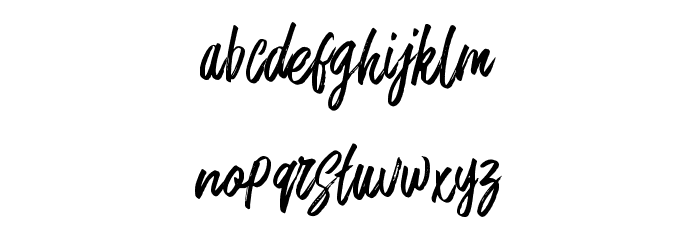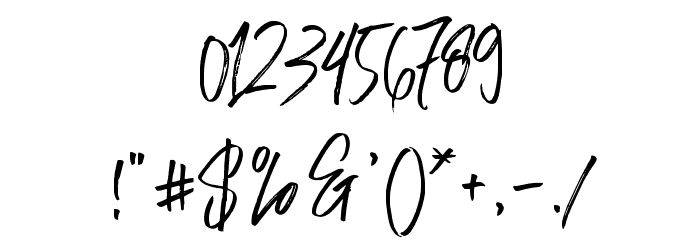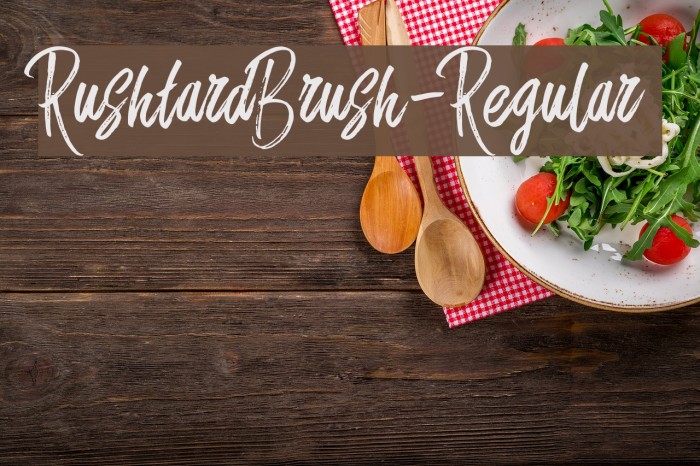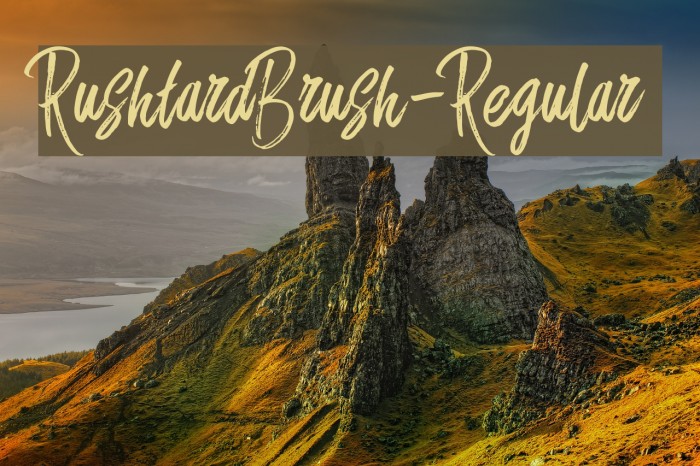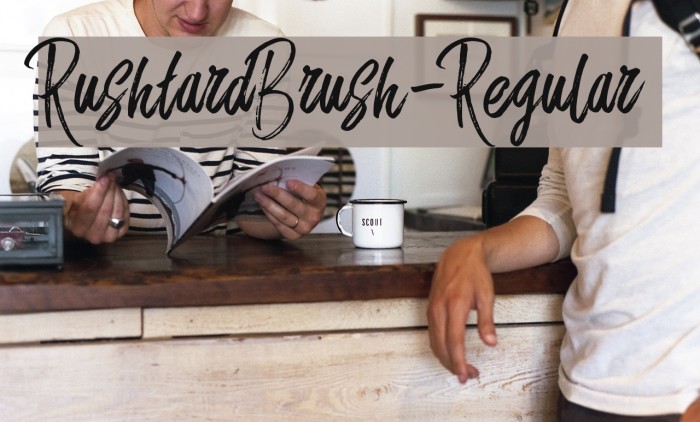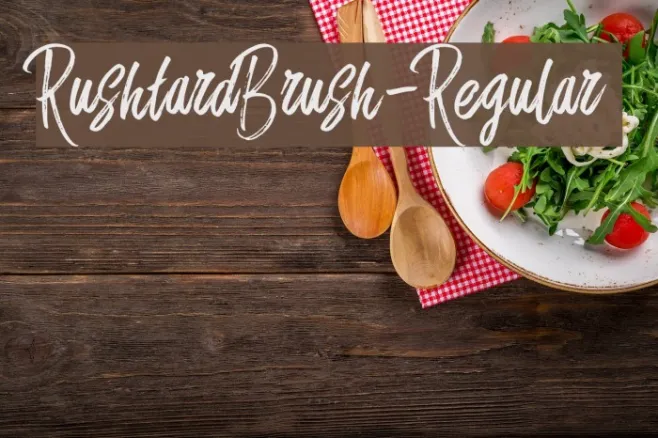
RushtardBrush-Regular Font
This font exudes a dynamic and energetic feel, characterized by its brush-like strokes that give it a hand-painted appearance. The letters are slightly slanted, adding to the sense of movement and fluidity. The uppercase letters are bold and striking, while the lowercase letters maintain a consistent style, offering a cohesive look. The numbers and special characters follow the same brush-stroke style, ensuring uniformity across all characters. This font is perfect for projects that require a personal touch or a creative flair, such as invitations, posters, or branding materials.
A dynamic brush-style font with energetic, hand-painted strokes.
- Proposed Projects: Ideal for creative projects like invitations, posters, and branding materials.